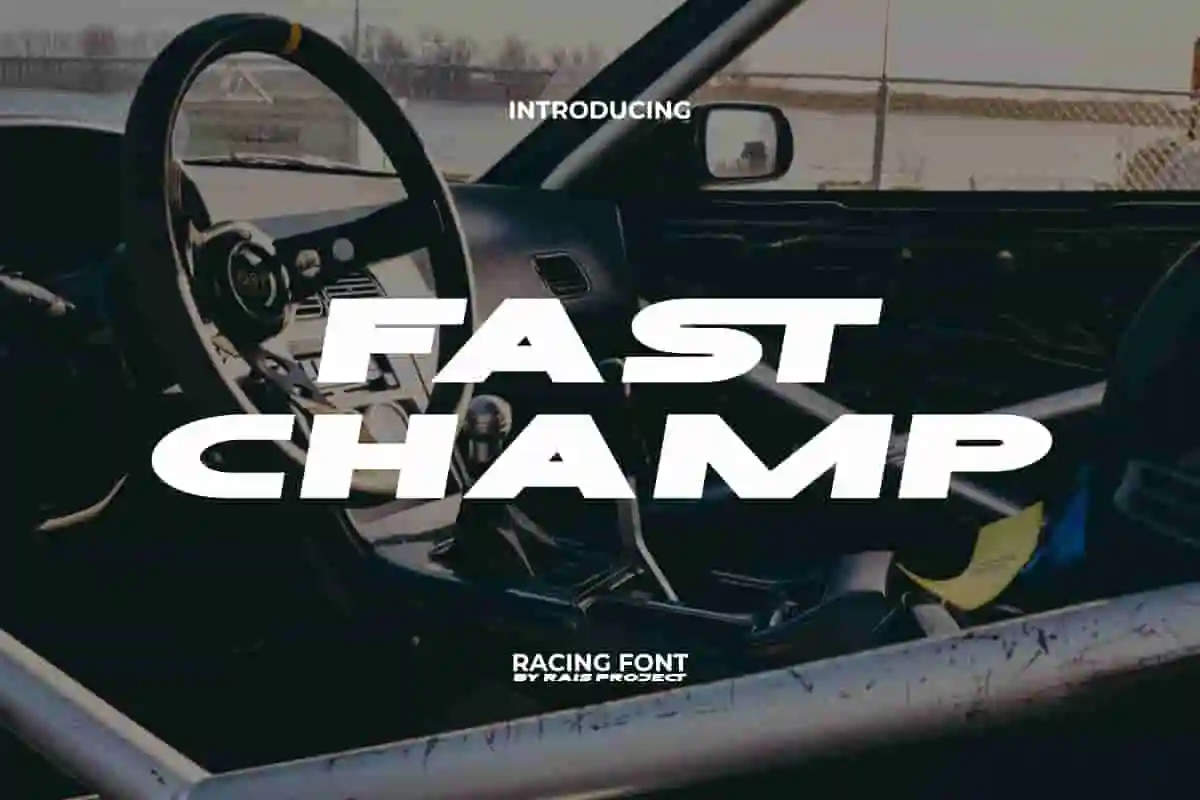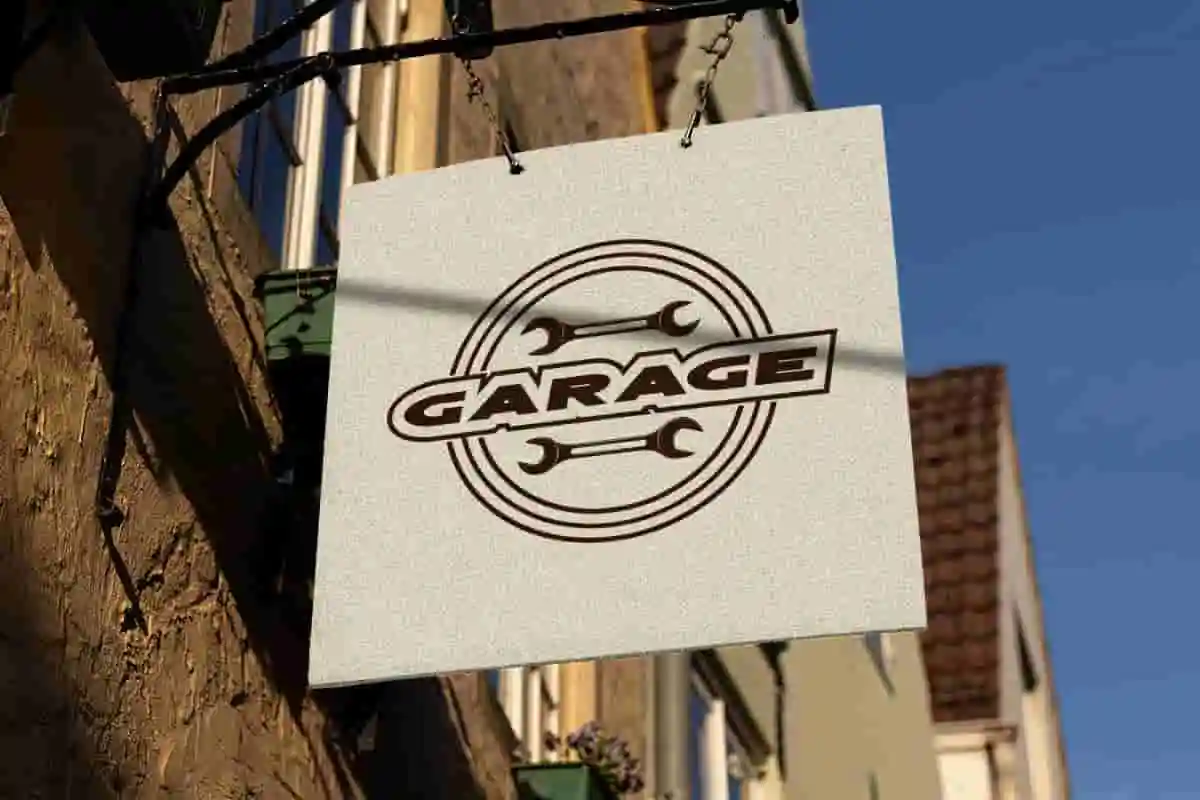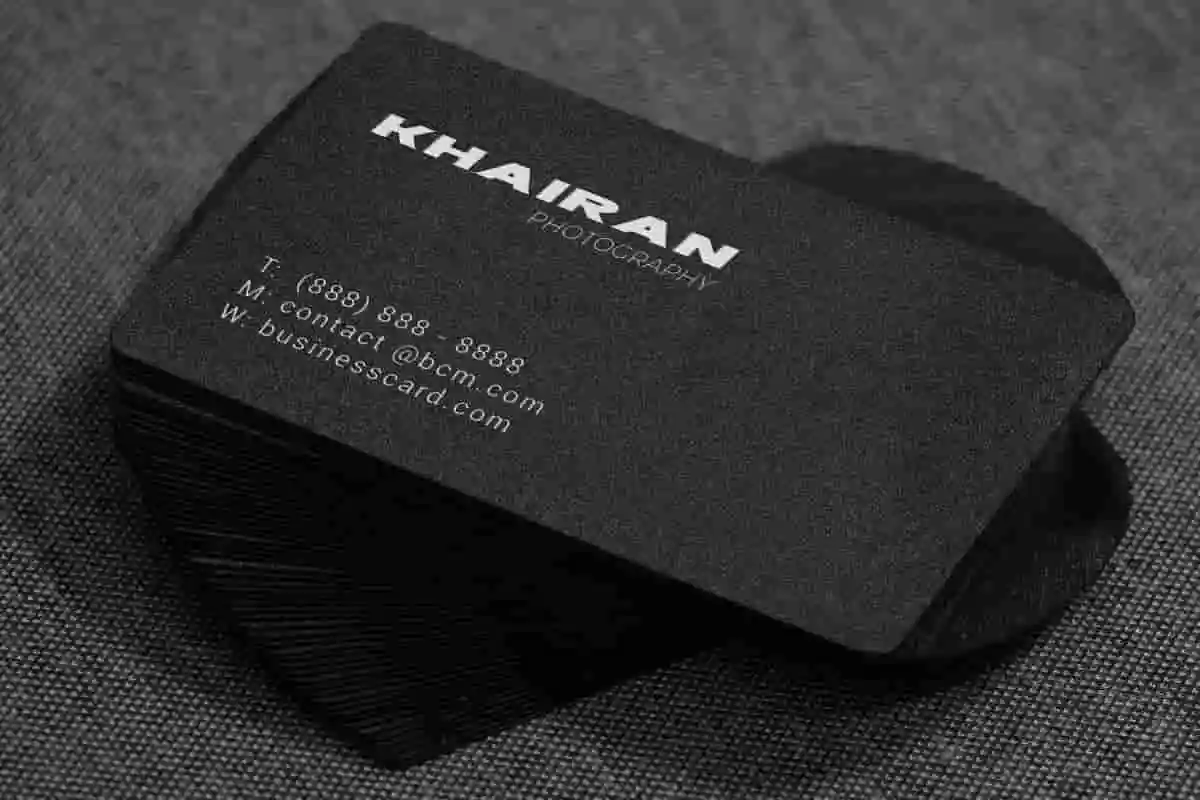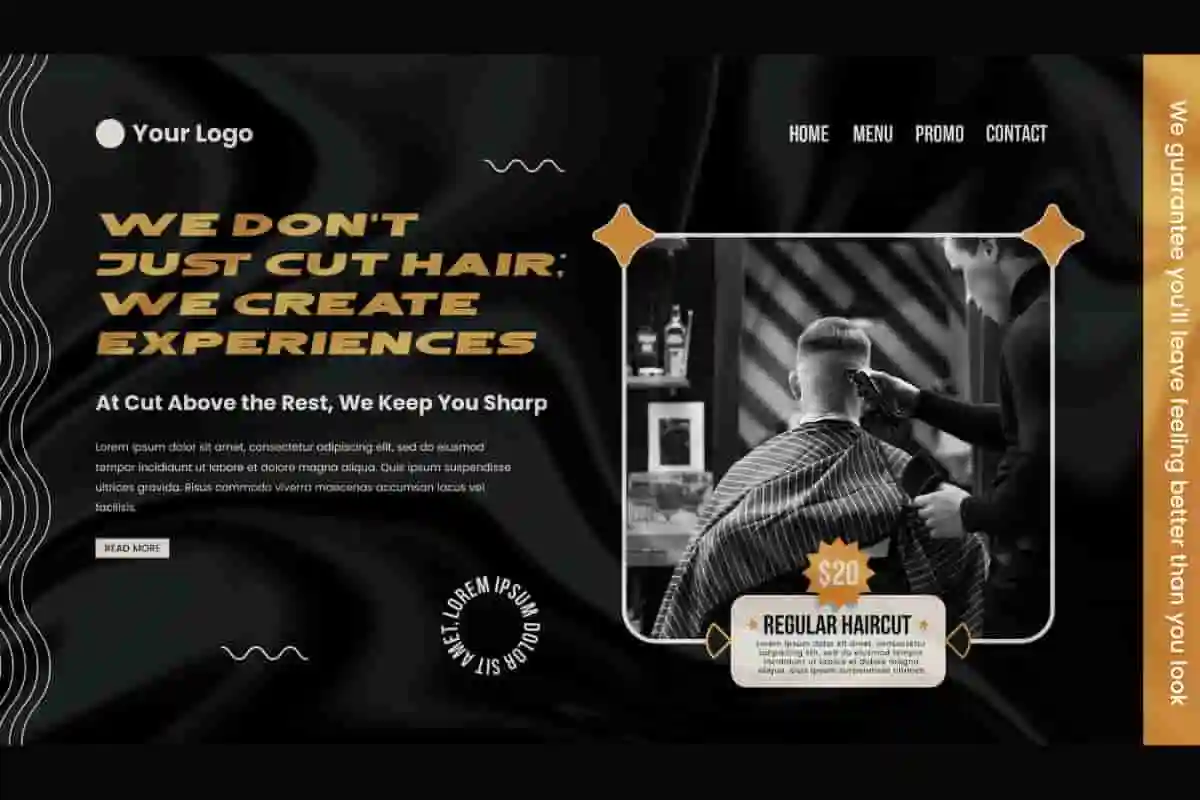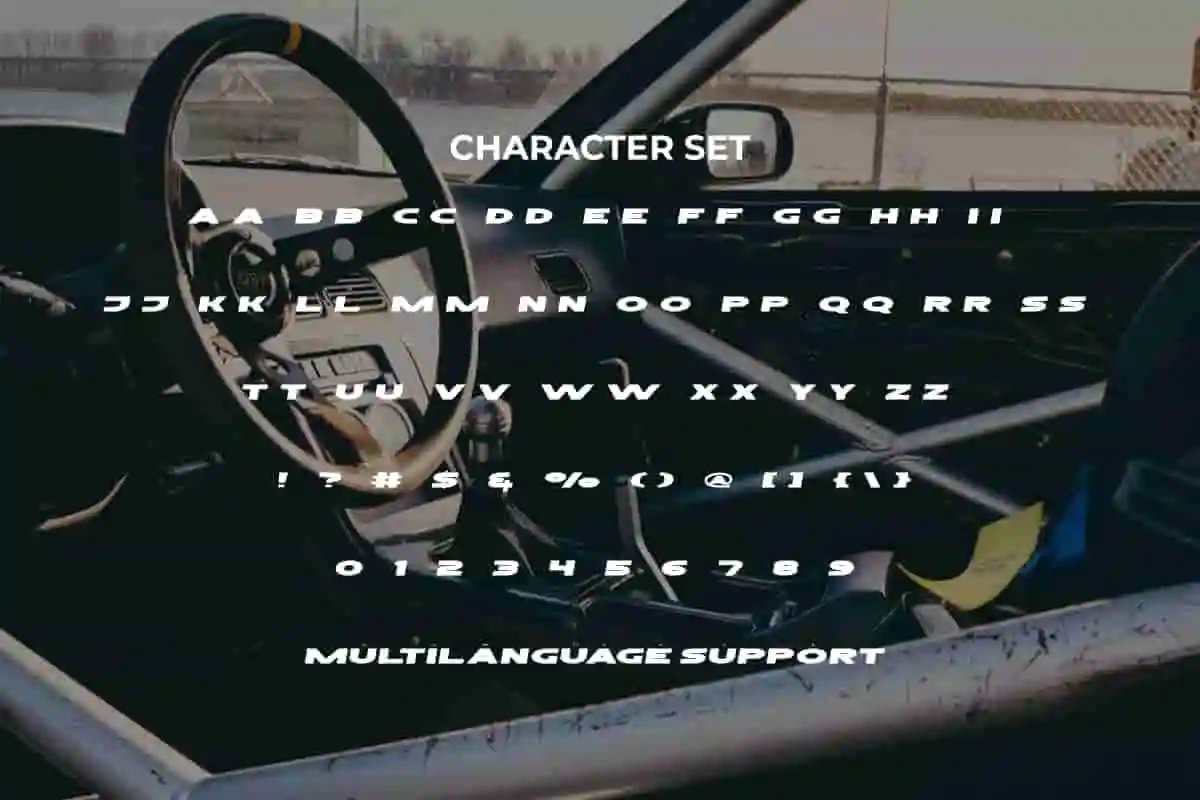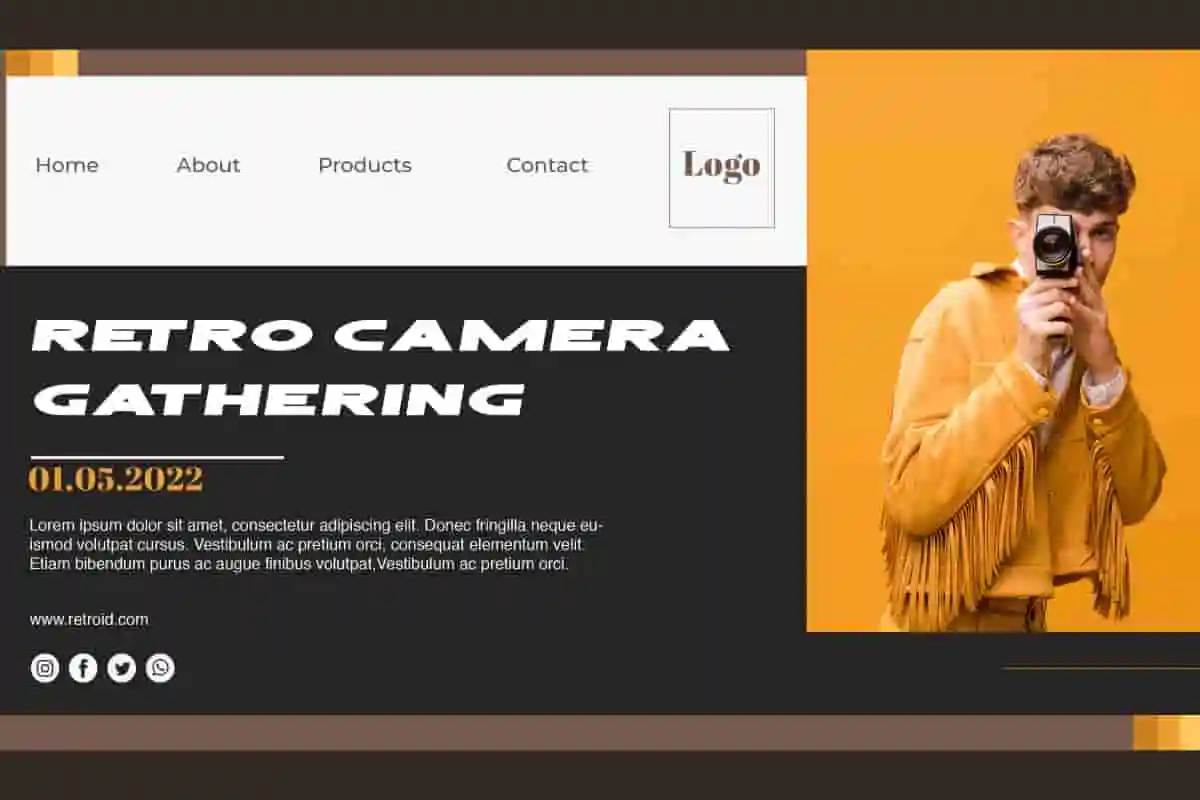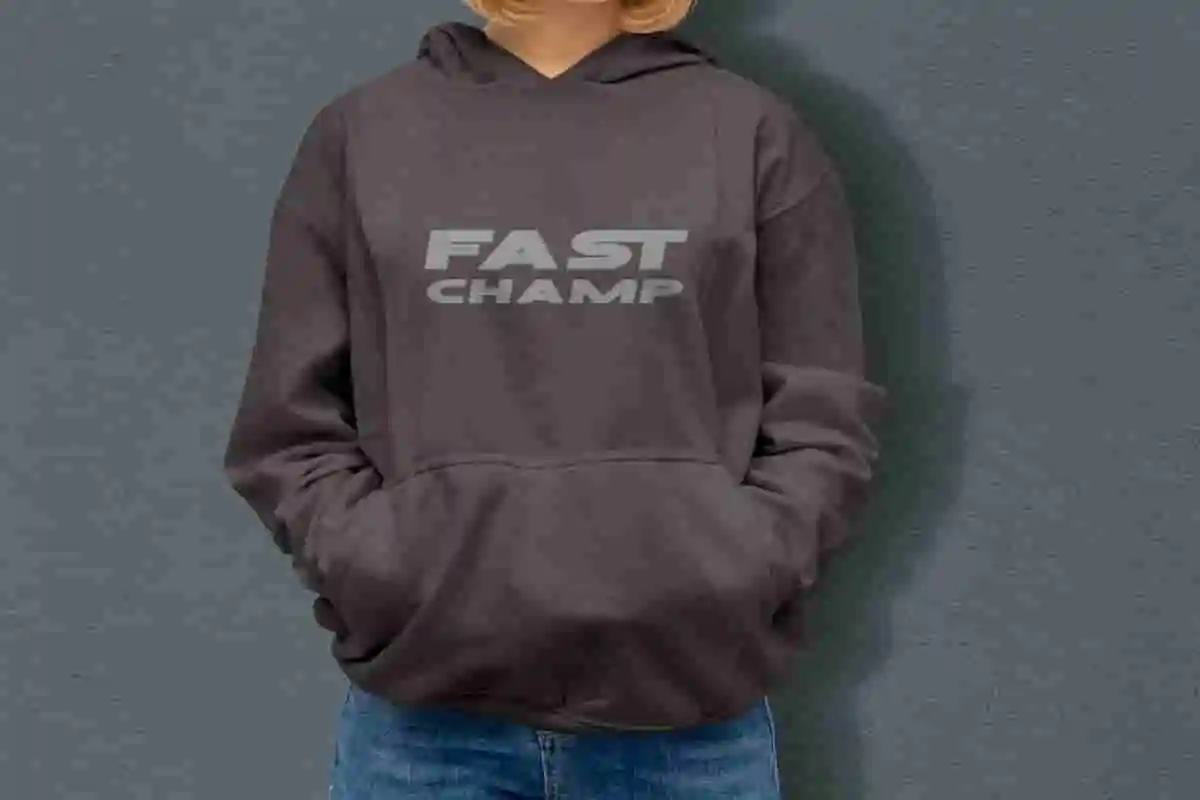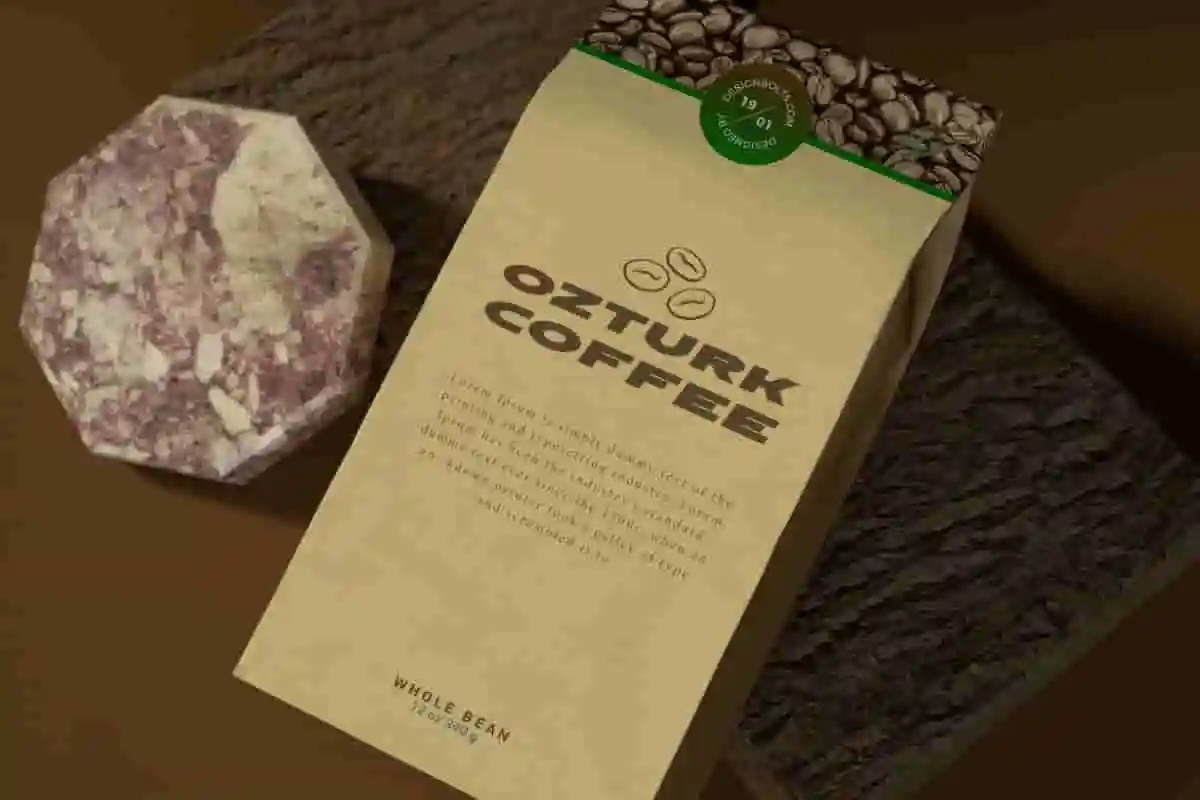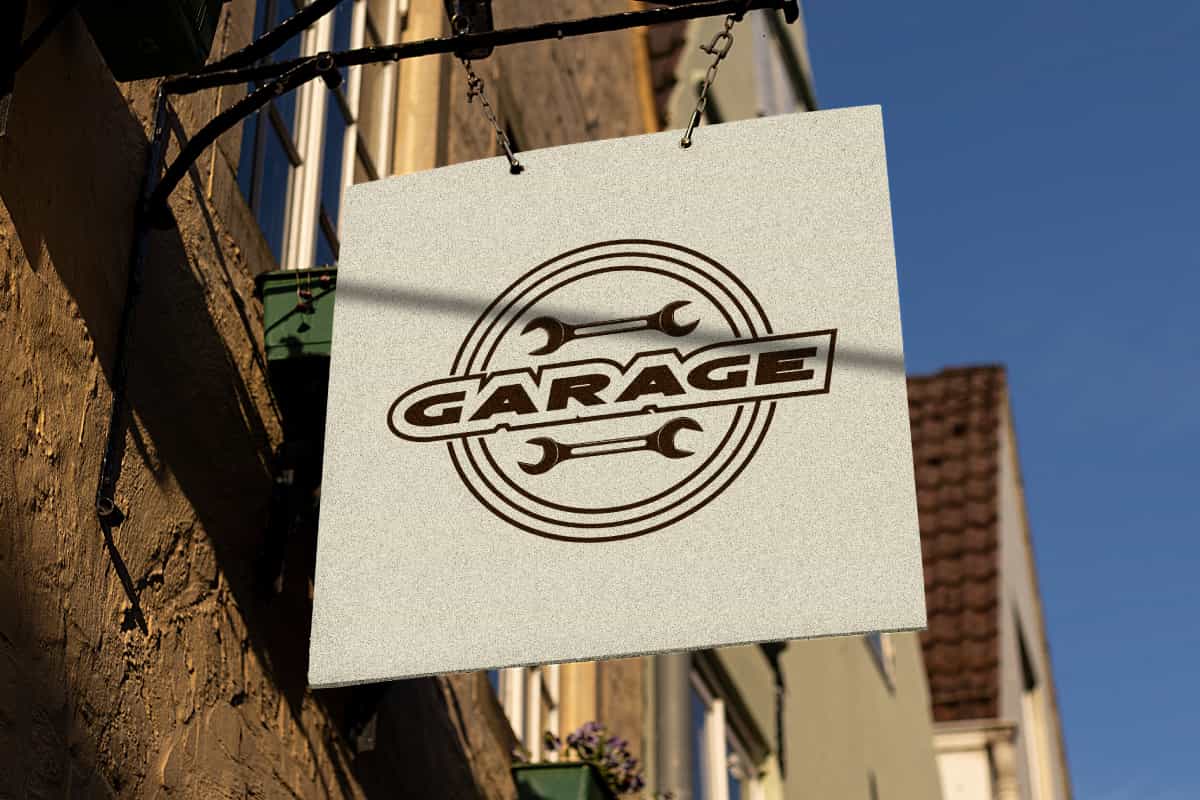
Fast Champ Display Font
Fast Champ Font is a bold and stylish racing font. Create an exclusive design with this cool font!
Fast Champ Font is a sporty racing font with casual style exclusive by RaisProject. This font can convey an exclusive with modern impression because of its bold and firm shape. It will be good for any designs, such as signage, stationery, custom design, poster, product packaging, quotes, poster, brand image, advertisement, invitation, label, marketing material, website page, and more!
Introducing Fast Champ Display Font – a bold, sporty, and dynamic typeface built to bring energy and confidence to your designs. With strong lines, sharp edges, and a fast-paced aesthetic, this font is perfect for brands, teams, and creatives who want to make a powerful statement. Whether you’re designing sports logos, event posters, merchandise, gaming graphics, or digital content, Fast Champ delivers impact and style.
Typography is one of the most powerful ways to express your brand identity, and Fast Champ Display Font is here to give your visuals a bold, competitive edge. From sports teams to fitness brands, esports graphics to promotional materials, this font is designed to create a lasting impression.
Fast Champ Display Font includes a full set of ALL CAPS for Uppercase and Lowercase Letters, Numerals, and large range of Punctuation. This stylish font will be suitable for various industries, such as sports, automotive, fashion, game, barber shop, cafe, event or festival, photography, printing, publishing, etc.